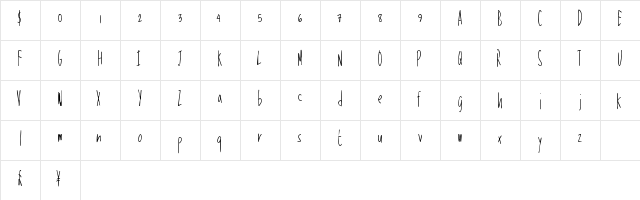
TalkingLouder Regular
| Foundry | Xerographer Fonts |
| Designer | Xerographer Fonts Max Infeld |
Design Context for TalkingLouder Typeface
TalkingLouder is a composed and adaptable typeface that performs quietly and consistently across a wide range of design contexts.